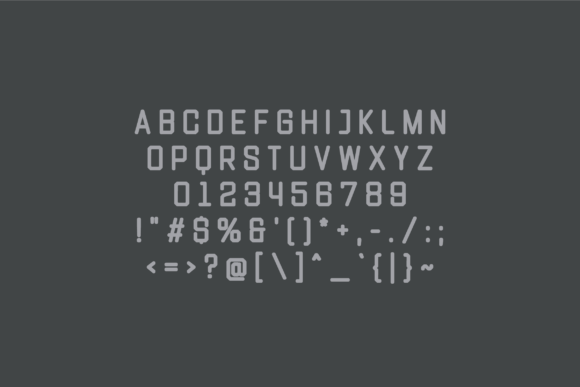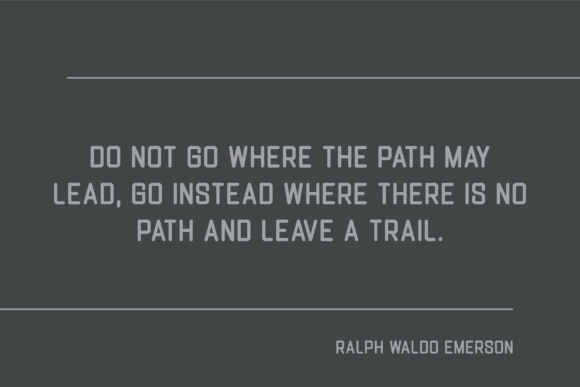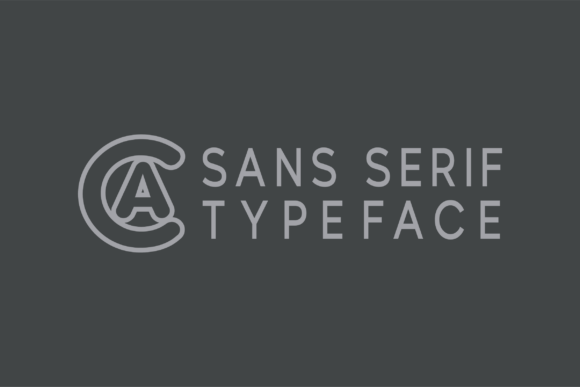
Introduction to Philemon Font
Have you ever stared at a blank canvas, searching for the perfect font to bring your creative project to life? That’s exactly what happened to many designers when they discovered the Philemon Font. This modern, classy sans serif typeface has been the go-to choice for designers looking to add a touch of elegance to their work.
With its clean lines and versatile design, the Philemon Font is perfect for a wide range of applications, from logos and weddings to invitations and advertisements. Its high quality and transparent background make it a valuable design resource for any creative project. Whether you’re a seasoned designer or just starting out, the Philemon Font is sure to be a valuable addition to your toolkit.
Key Features of Philemon Font
- Unique, elegant design for creative projects and designs
- Transparent background and customizable design make it a versatile design resource
- High-quality design with precise details and lines for professional use
- Perfect for use in logos, branding, and other visual identity projects
- Supports a wide range of languages, making it a great design resource for international projects
Honest Review: Philemon Font
I recently had the opportunity to work with the Philemon Font for a creative project, and I must say it’s been a great addition to my design resource library. The free download was a nice surprise, and the transparent background makes it easy to work with.
- High quality typography that’s perfect for headings and titles
- Very versatile and suitable for a wide range of creative projects
- Easy to read and understand, even at small font sizes
- Comes in a variety of weights and styles to suit different design needs
- Not ideal for use as a body font due to its relatively large size
- May not be suitable for very small or highly detailed designs
- No bold italic or oblique styles available
Overall, I’m impressed with the Philemon Font. It’s a great addition to any design library, and its high quality typography makes it a valuable resource for any creative project. While it may have some limitations, it’s definitely worth considering for your next design project.
Some common use cases for the Philemon Font include creating social media graphics, designing business cards, and developing branding materials. Tips for getting the most out of the Philemon Font include experimenting with different font sizes and colors to create visually appealing designs. Additionally, using the Philemon Font with a transparent background can help your designs stand out and add a professional touch.